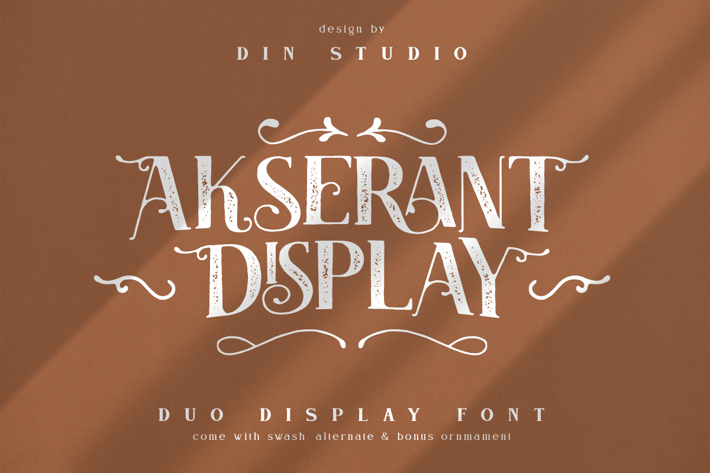
Akserant Display Font
Din-Studio
Akserant Display Font is amazing display font. The font is suitable for any project like branding , lettering , tshirt print and may others.
- Accents (Multilingual characters)
- 10 Ligatures
- 113 Alternates and swashes
- Features with Clean and Rough Version.
- Bonus ornament